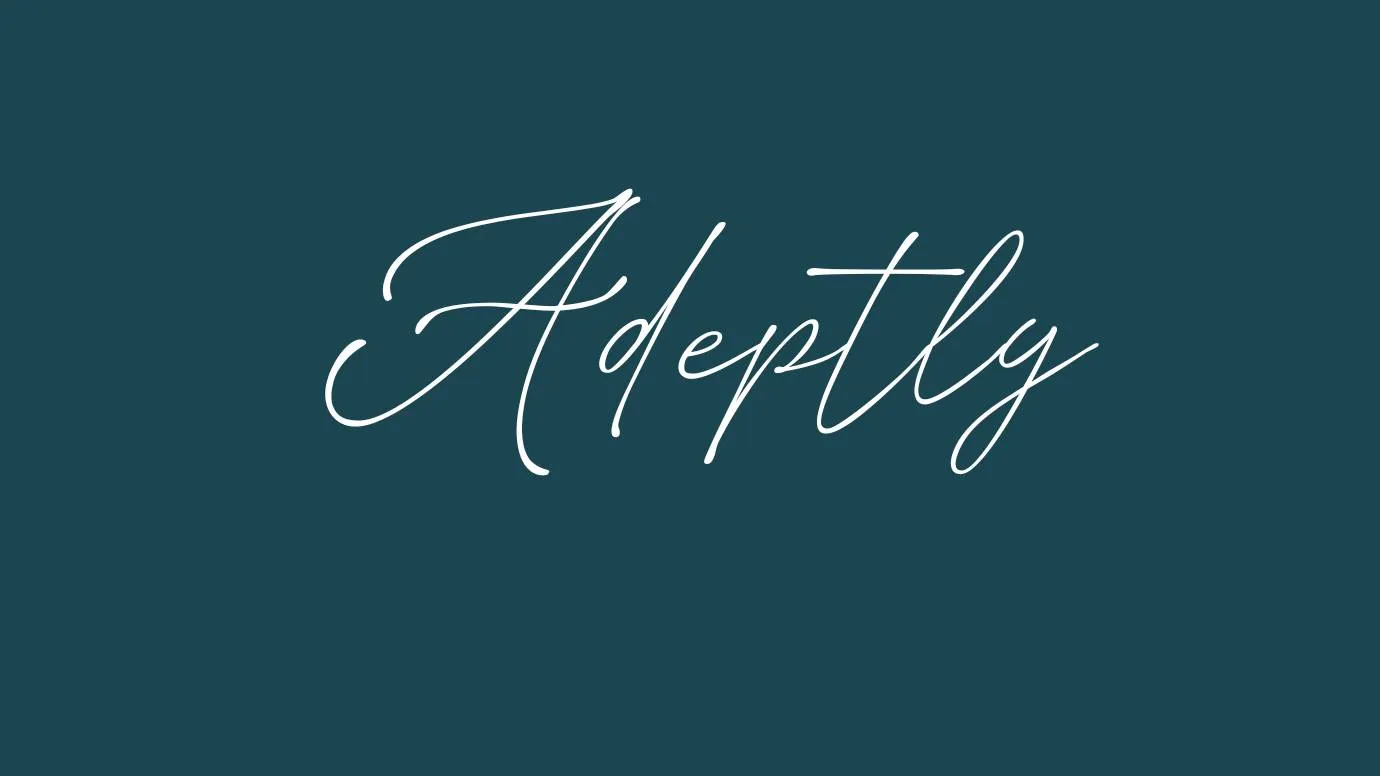
Adeptly Font Family is a very beautiful handwritten typeface that has a charming and classy calligraphy touch to it. This interesting font was designed by Ali Hamidi. It can be downloaded on all types of devices such as Windows, Linux, MAC, and Android.
This interesting font is also used for pairing with other fonts such as Romantica font to give a more attractive and elegant look to your projects.
Adeptly Font